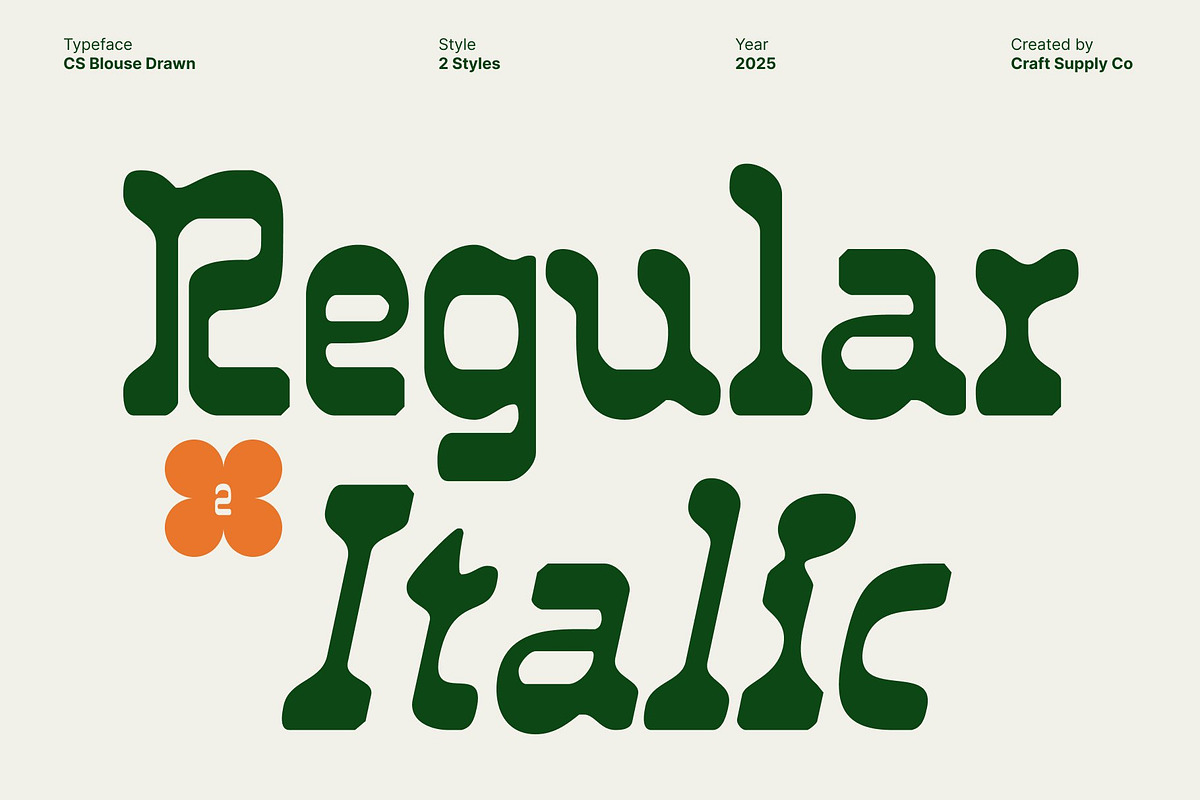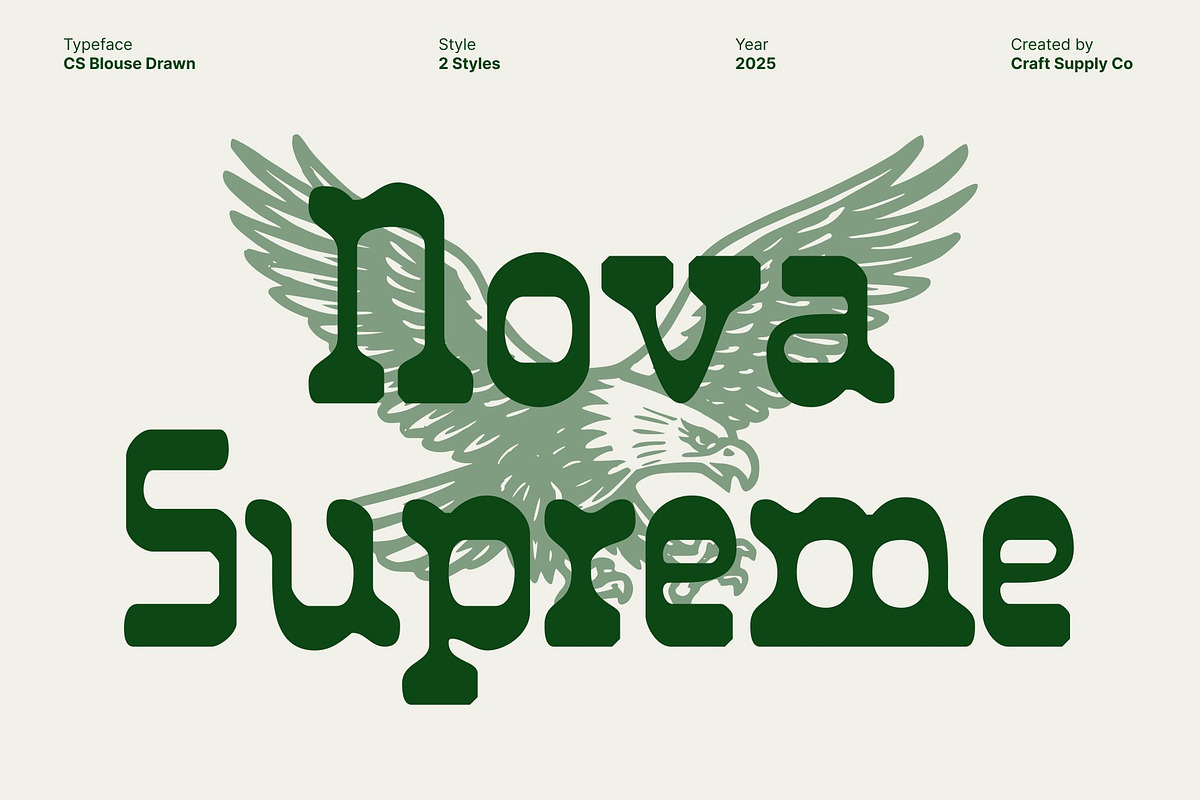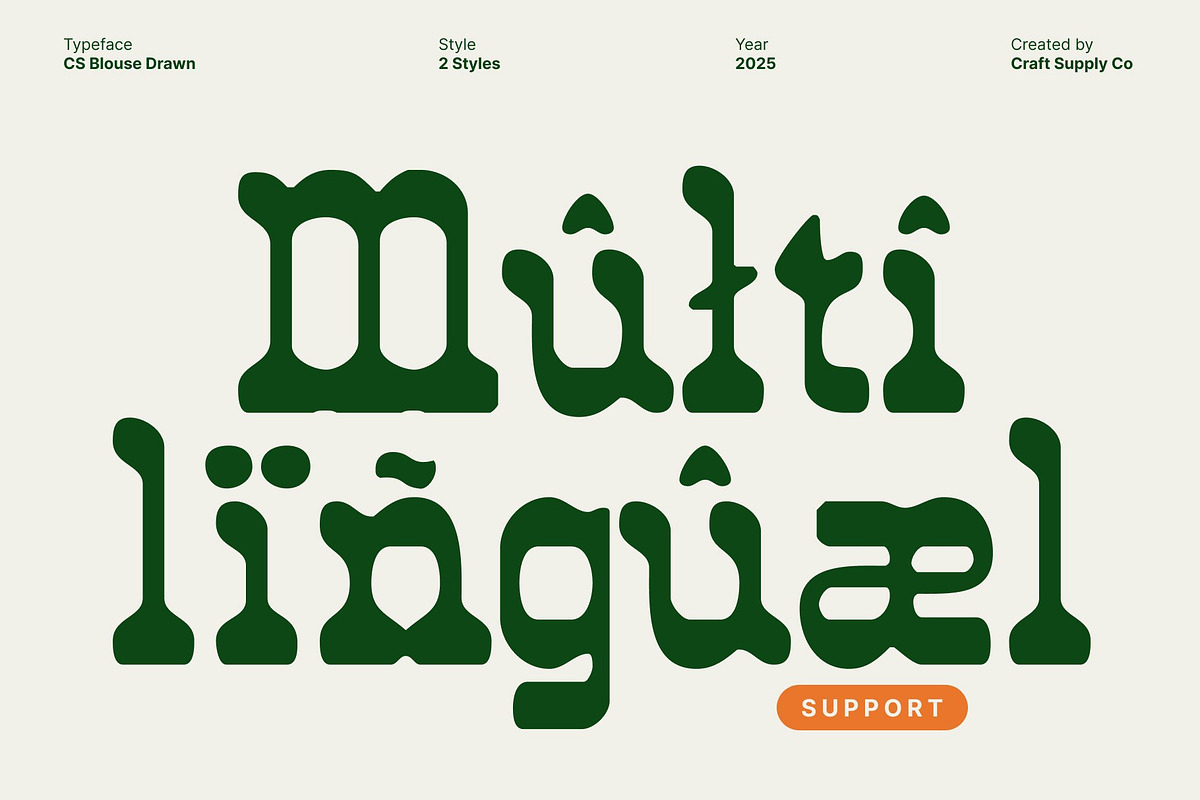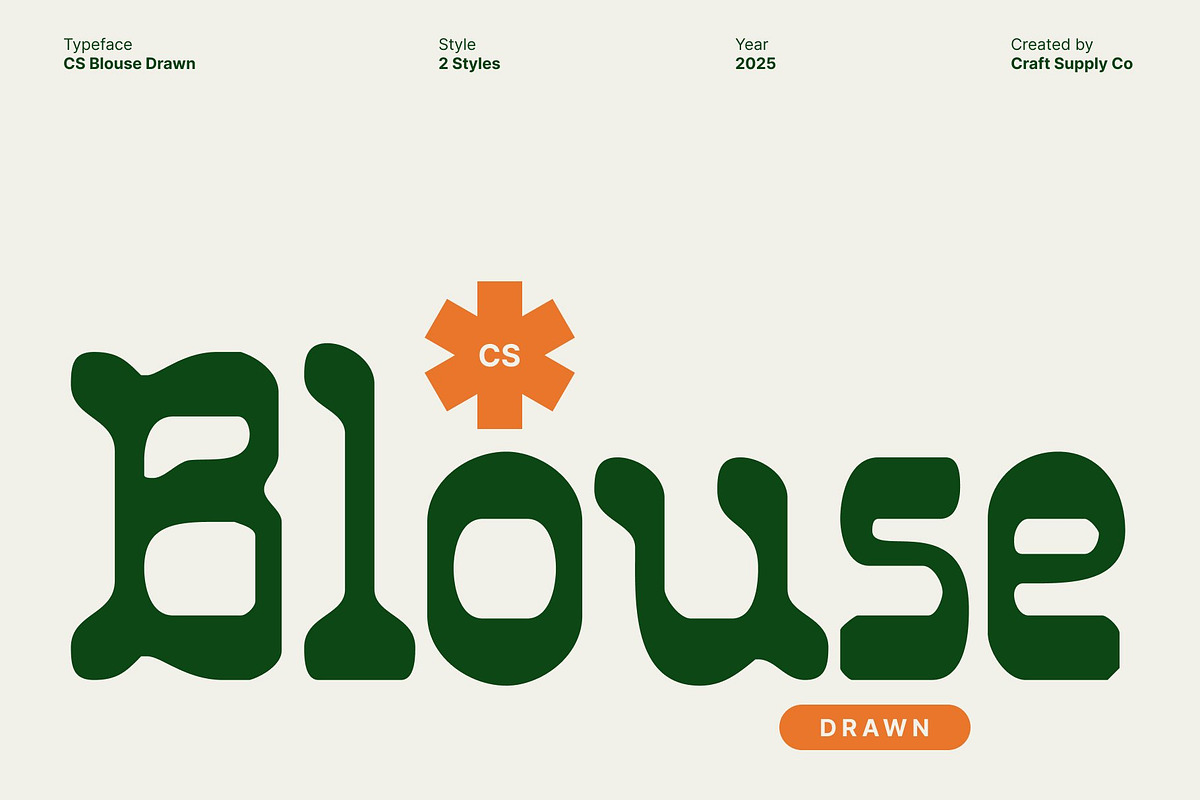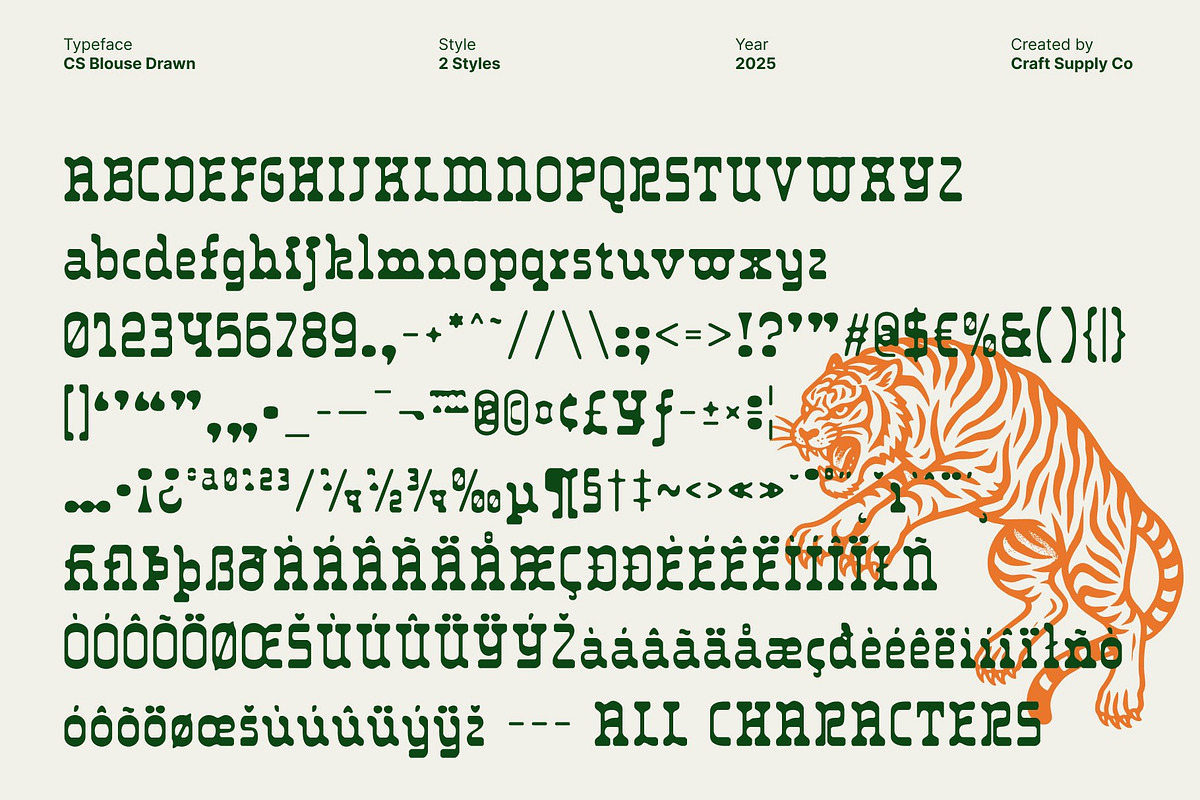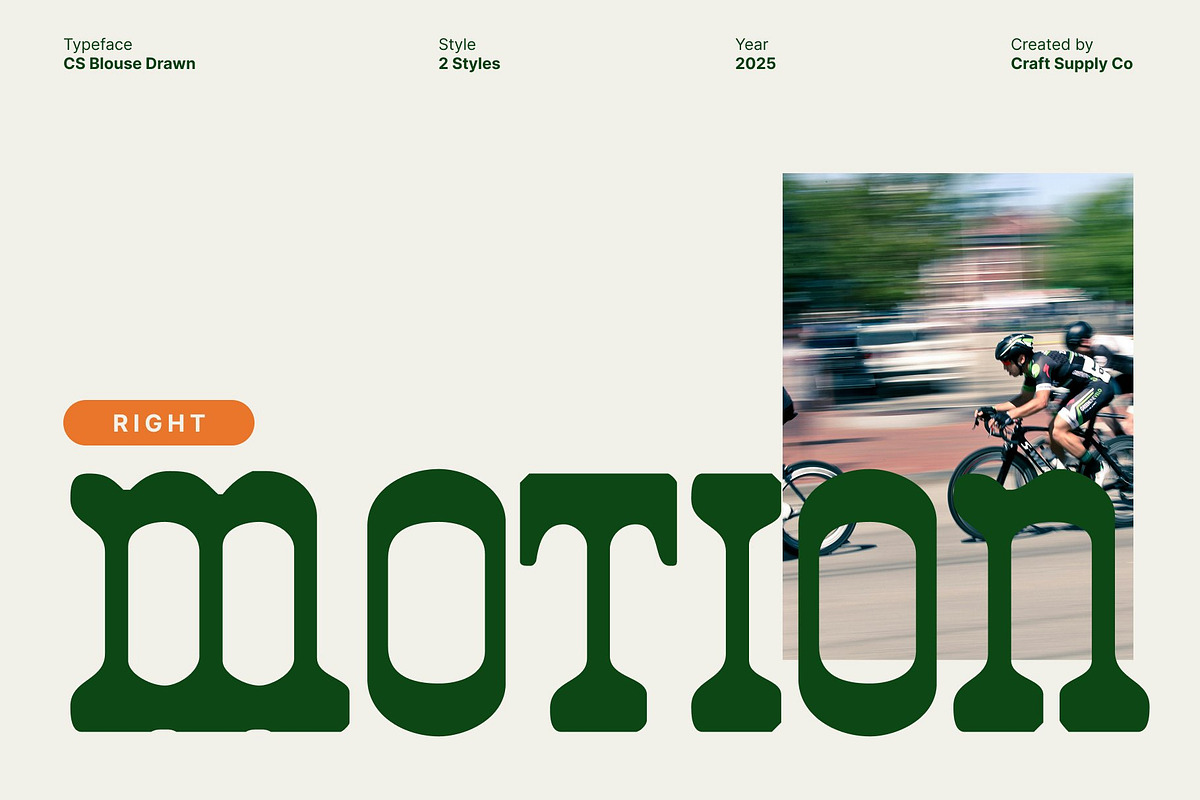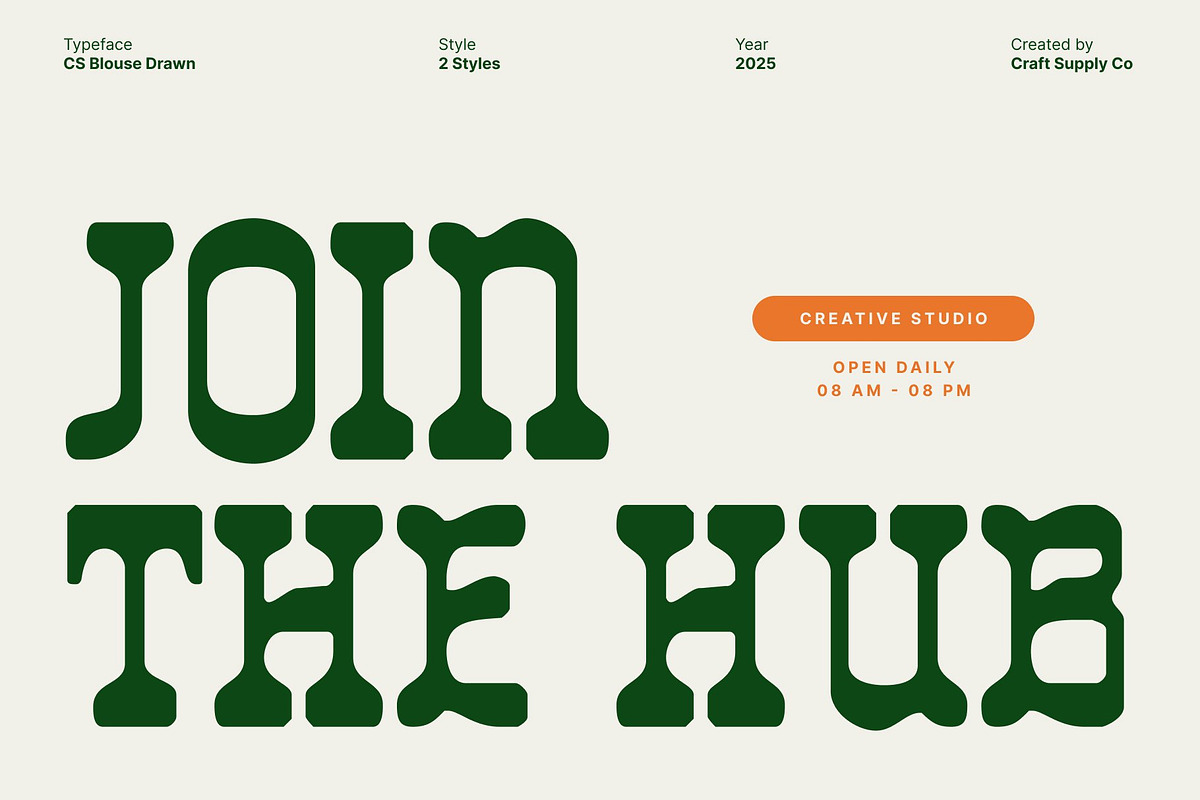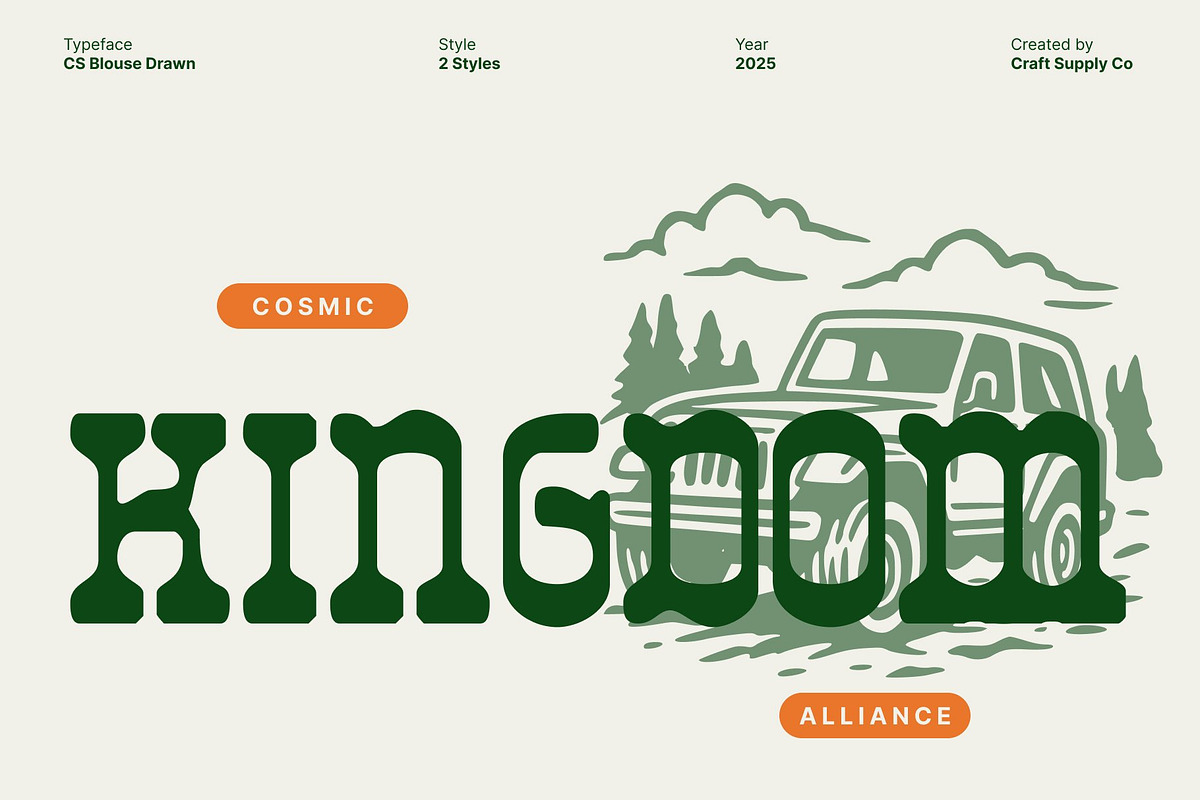
CS Blouse Drawn
CS Blouse Drawn – A Retro Statement with Modern Modularity
Retro Charm Meets Modern Design This font captures the bold essence of retro typography while adding a contemporary twist. This reverse contrast serif font combines thick horizontals and slim verticals, creating a visually dynamic style that feels both nostalgic and forward looking. Its modular structure and geometric balance bring a refined yet playful tone to any layout.
Distinctive Shapes for Lasting Impressions With its bold shapes and hand drawn character, this font stands out effortlessly in display use. The drawn detailing adds warmth and authenticity, softening its strong geometry and lending a crafted, human touch. Each letter embodies a perfect blend of structure and spontaneity, ideal for designers who want to make a memorable visual statement.
Perfect for Posters, Branding, and Editorials Designed to command attention, this font thrives in large scale applications such as posters, logos, magazine covers, or creative campaigns. Its confident rhythm and retro appeal make it ideal for brands that want to express personality, creativity, and heritage.
For Distinctive and Expressive Branding This font is more than a font it’s a design voice. Whether used for fashion branding, cultural projects, or modern promotions, it delivers clarity and distinction while honoring classic design movements. Bold, stylish, and unmistakably artistic, this font transforms every word into a striking visual experience.
- CS Blouse Drawn Regular
- CS Blouse Drawn Italic